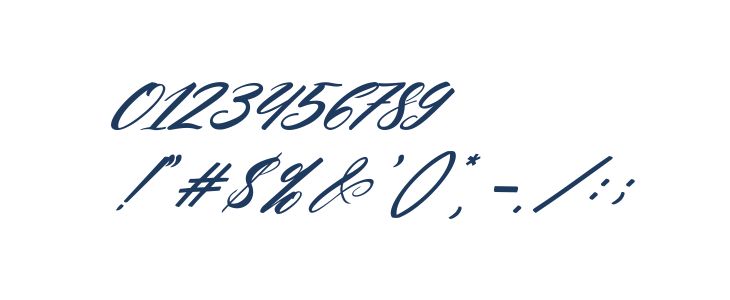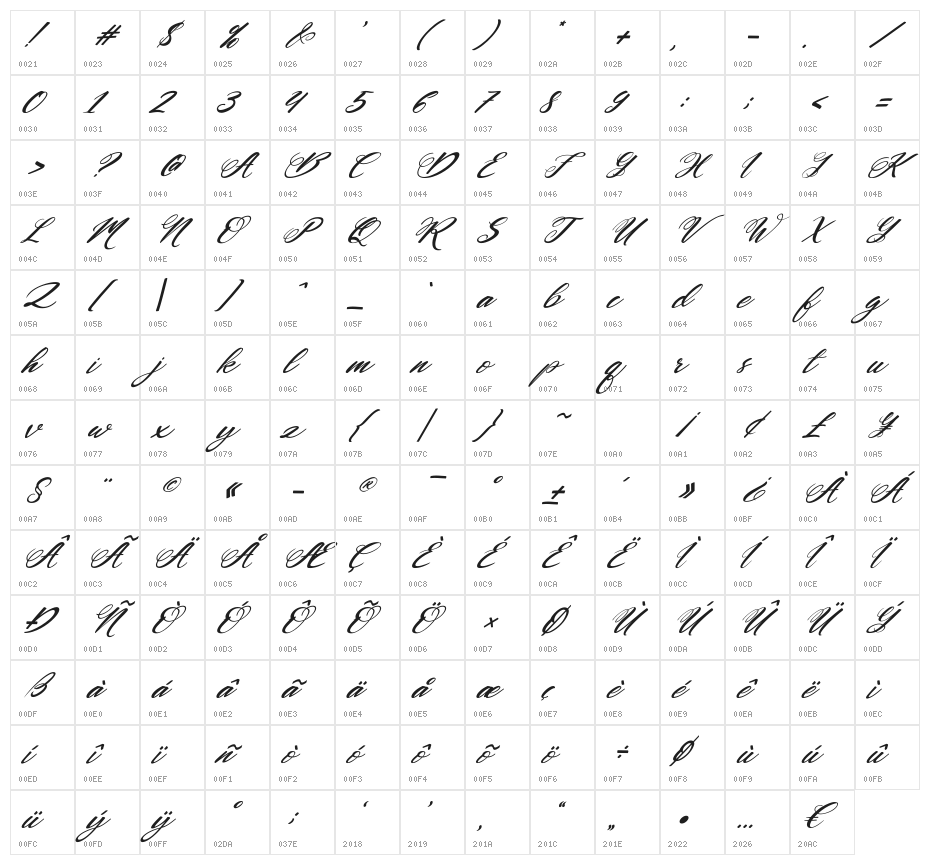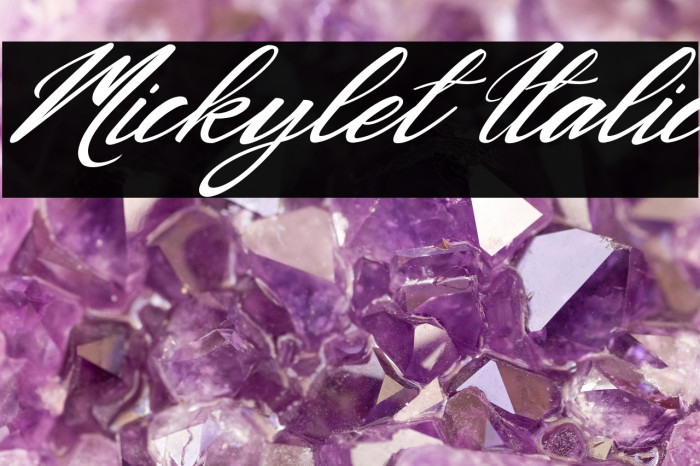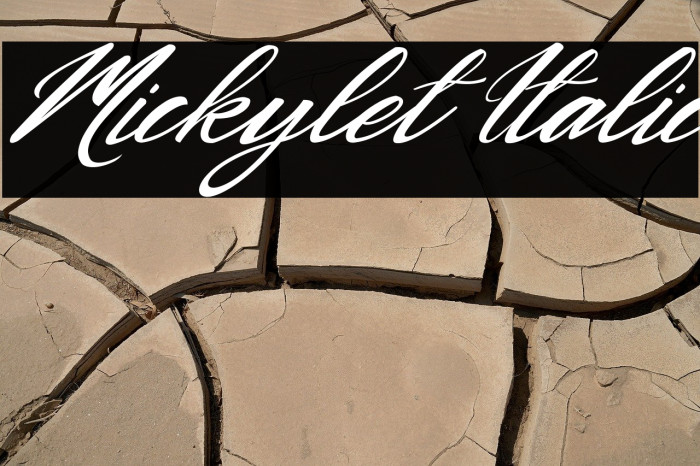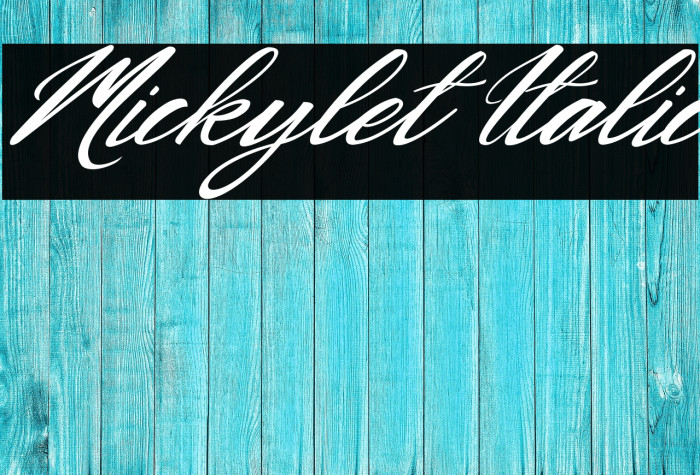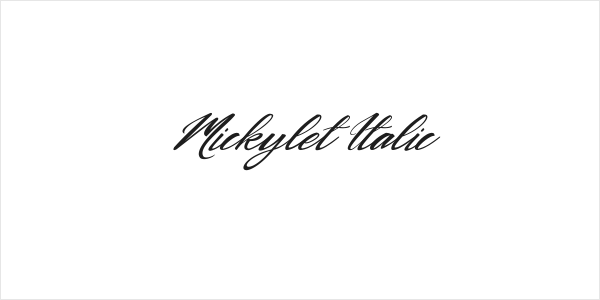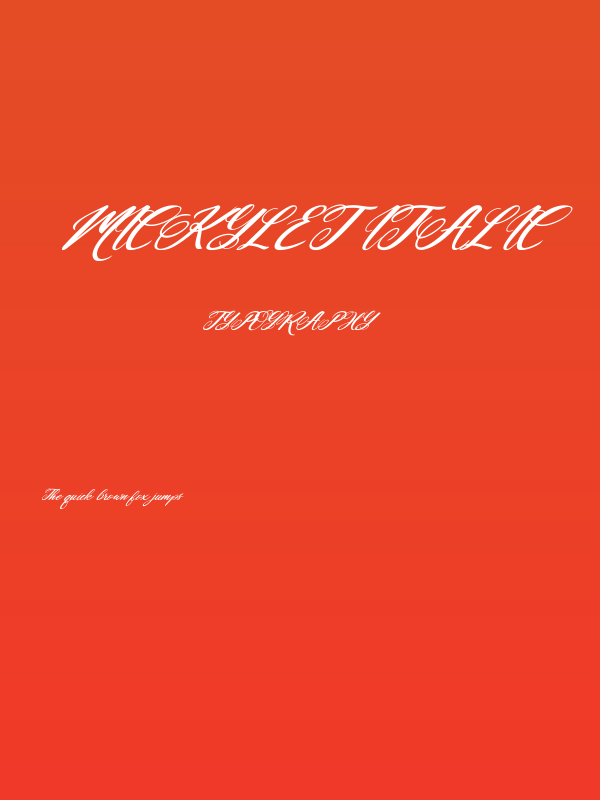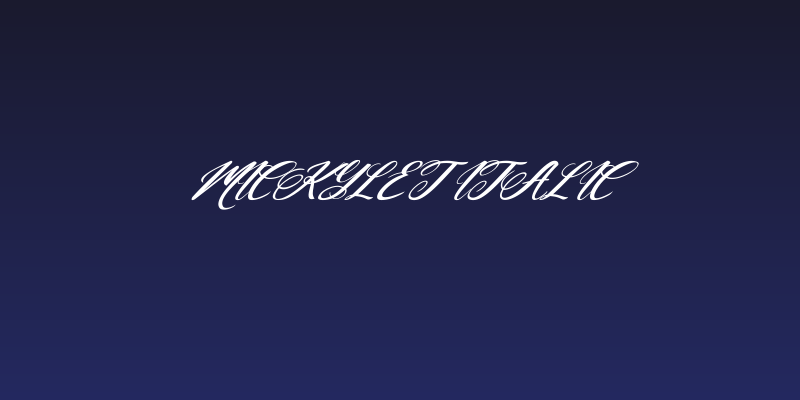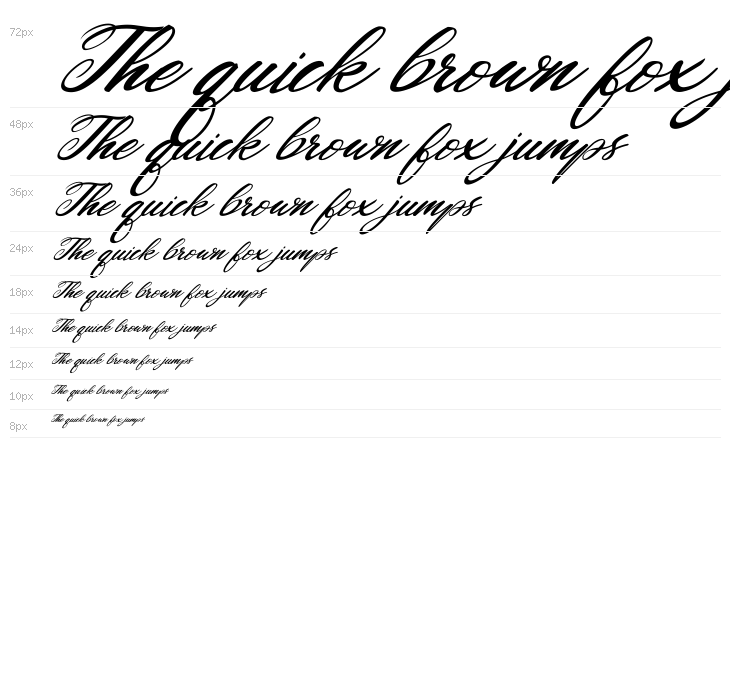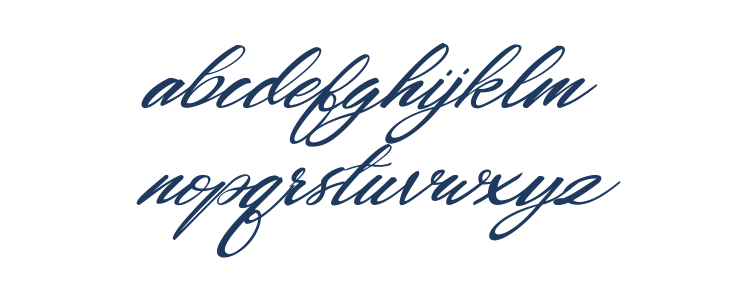
Mickylet Italic Font
Mickylet Italic Description
This font exudes elegance and fluidity, characterized by its cursive, flowing script style. The letters are intricately connected, with each character gracefully transitioning into the next, creating a seamless and sophisticated appearance. The strokes are bold and confident, with a slight slant that enhances the italic nature of the font. The uppercase letters are ornate, with flourishes that add a touch of grandeur, while the lowercase letters maintain a consistent rhythm and balance. The numerals and special characters are designed to match the overall aesthetic, ensuring a cohesive look across all text elements.